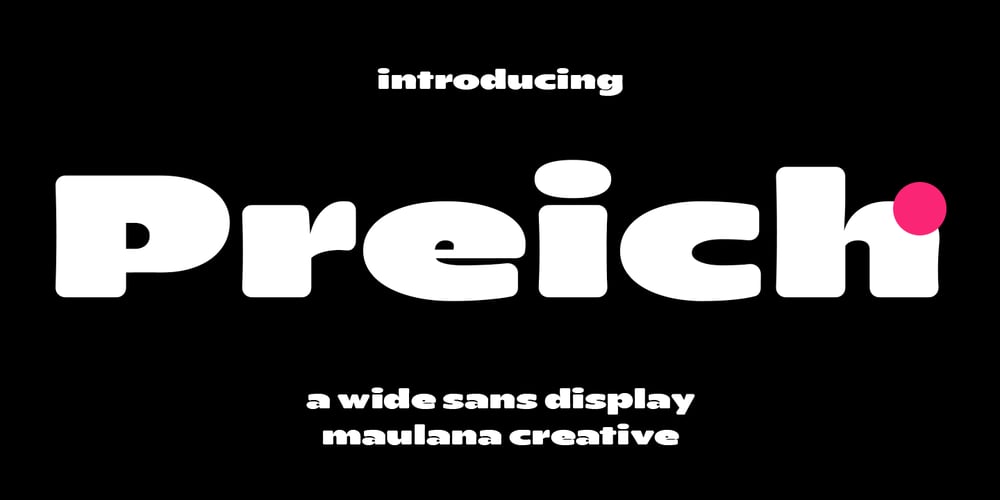
Preich Font Family was designed by Gilang Maulana and published by Maulana Creative. Preich contains 1 styles and family package options. Preich is a wide rounded sans serif font. With heavy stroke, fun character with a bit of ligatures and alternates. To give you an extra creative work. Preich font support multilingual more than 100+ language. This font is good for logo design, Social media, Movie Titles, Books Titles, a short text even a long text letter and good for your secondary text font with sans or serif. Make a stunning work with Preich font. Cheers, Maulana Creative